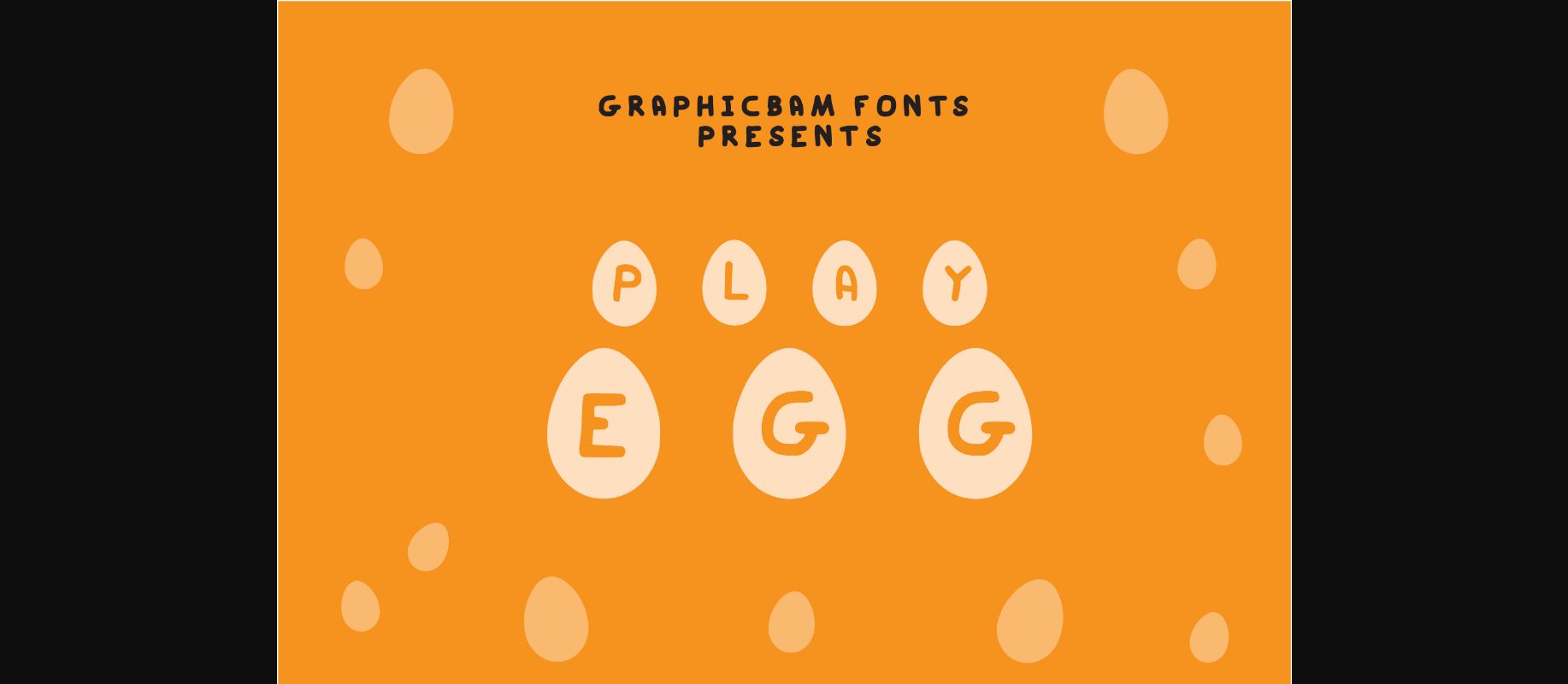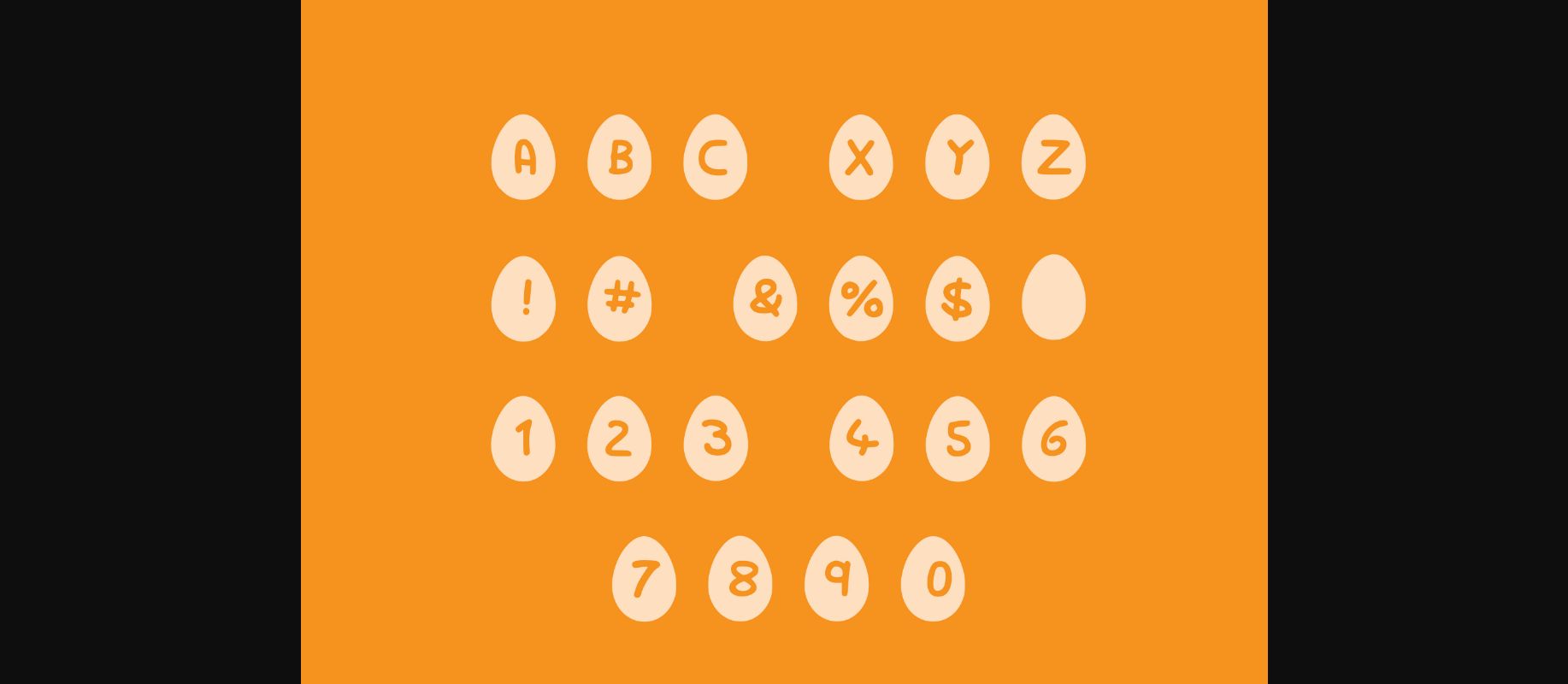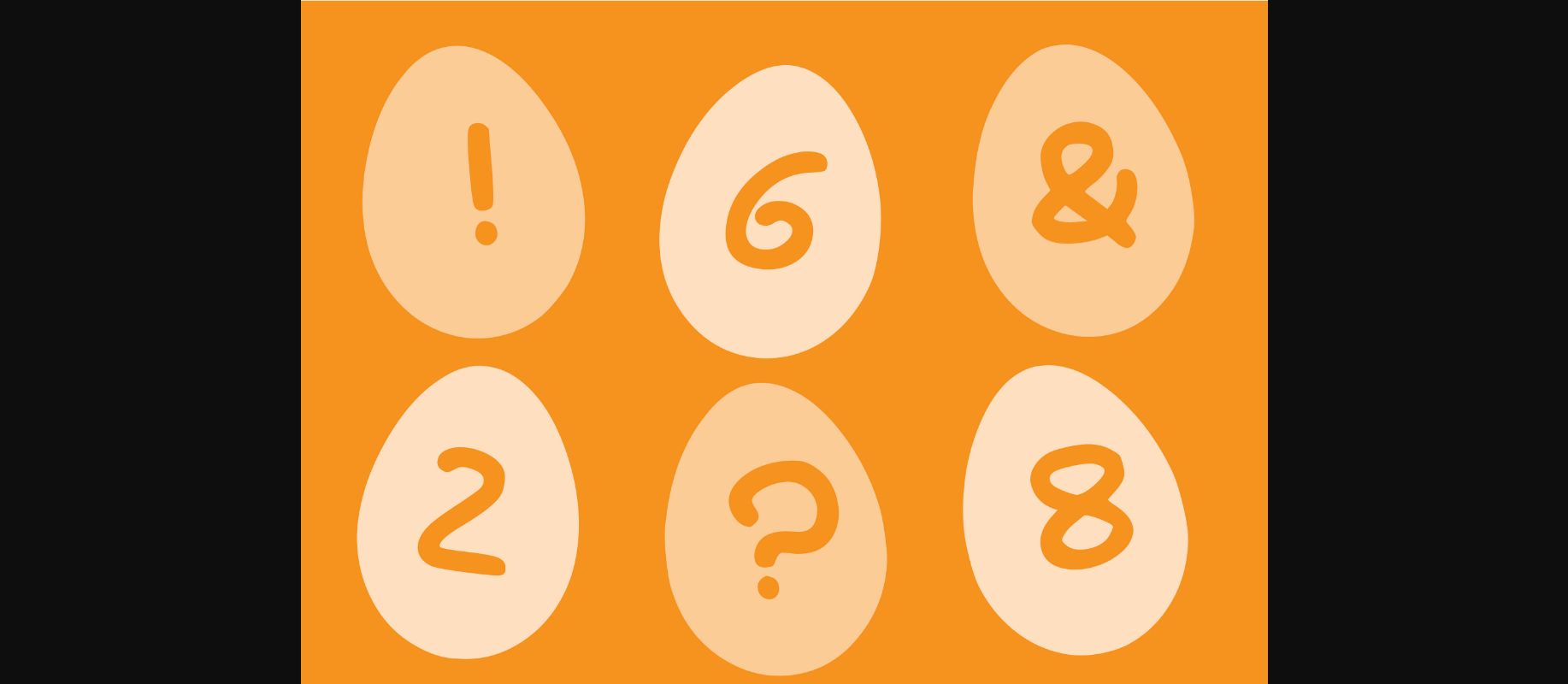
Play Egg is an egg-filled decorative font, perfect for a variety of creative projects. It works well for farming-related projects, chicken designs, breakfast items, kitchen items, and so much more!